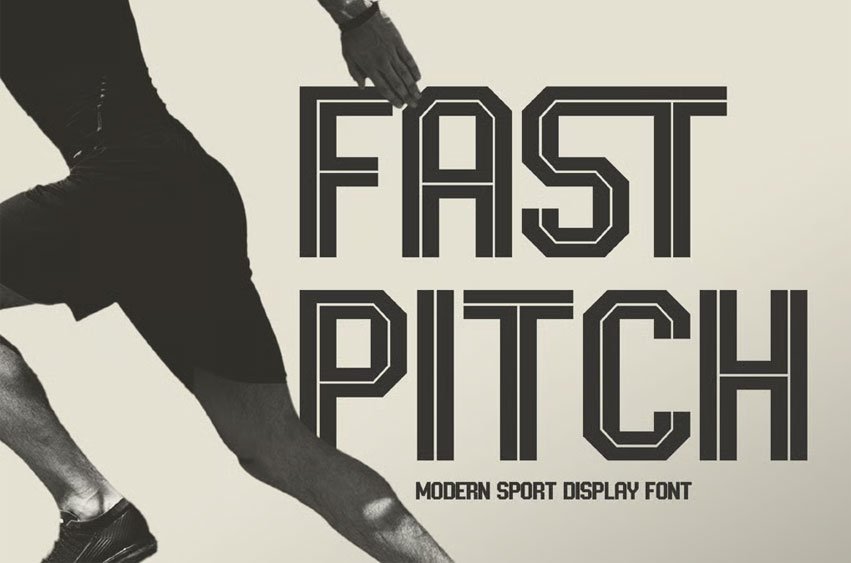
Fastpitch Font is a modern sport display font built for speed, strength, and impact. Its geometric shapes and sharp lines give a bold, confident look that’s perfect for athletic designs and competitive branding.
- Uppercase alphabet A-Z
- Lowercase alphabet a-z
- Numbers 0-9
- Some punctuation
- Some Alternates and Ligatures